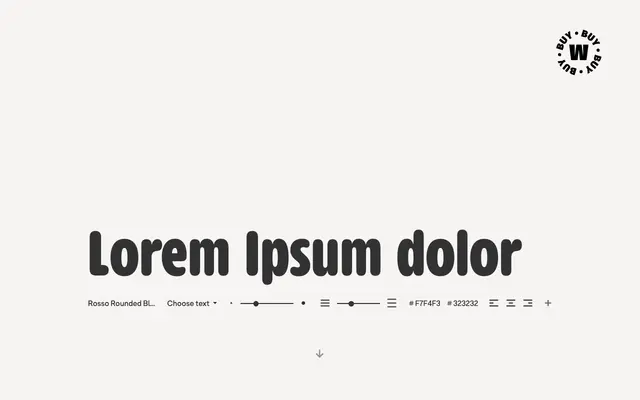
Rosso Rounded
W Type Foundry · Gaspar Muñoz
A condensed Art Deco geometric with rounded terminals, offered in two subfamilies across five weights with italics throughout.
Derived from the original Rosso typeface, the rounded variant softens the geometric condensed structure with rounded forms that lend it a more approachable character. The family spans UltraLight to Black with matching italics, and a second subfamily, Rosso Rounded Alt, provides alternate glyphs for greater typographic variety. Suited to logotypes, packaging and headline work where a retro geometric flavour is needed without hard-edged severity.
A condensed geometric display face with Art Deco influences and rounded terminals, positioning it firmly in the display category rather than a conventional geometric sans.